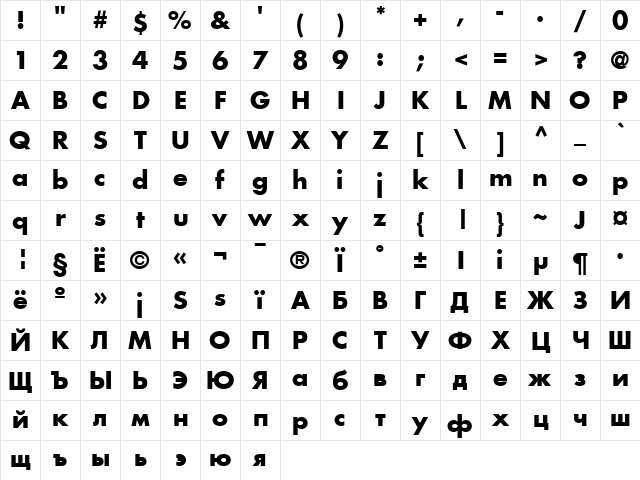
AG_Futura Bold Free Font
AG_Futura Bold
Design Context for AG_Futura
AG_Futura has a distinctly futuristic character, with geometric precision and clean angles that feel at home in technology, gaming, and sci-fi contexts. Its bold stroke weight gives it real presence on the page.